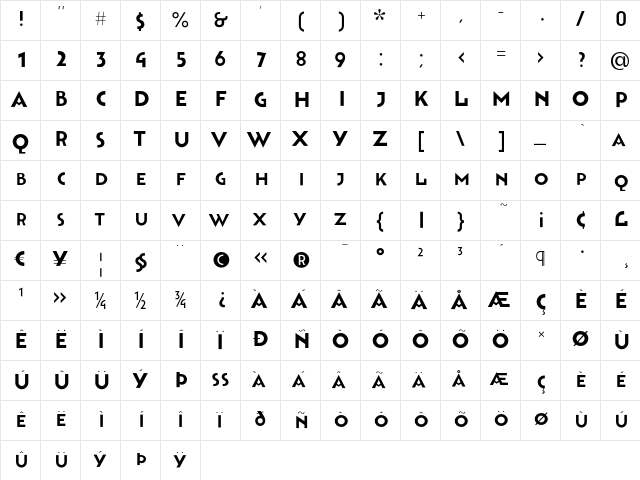
Bahnhof Solid Regular
| Foundry | Frantisek Storm, stormtype.com |
Design Context for Bahnhof Solid Typeface
Bahnhof Solid offers clean, dependable letterforms without strong stylistic allegiance, making it a practical choice for designers who need flexibility.